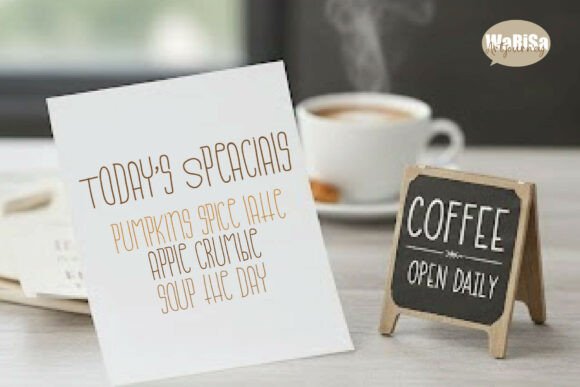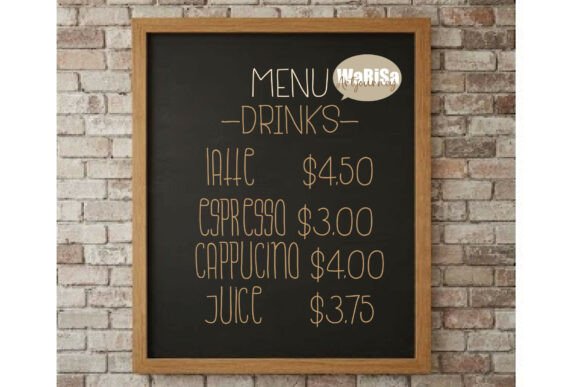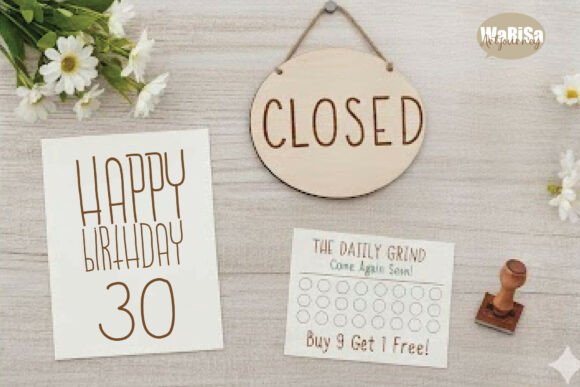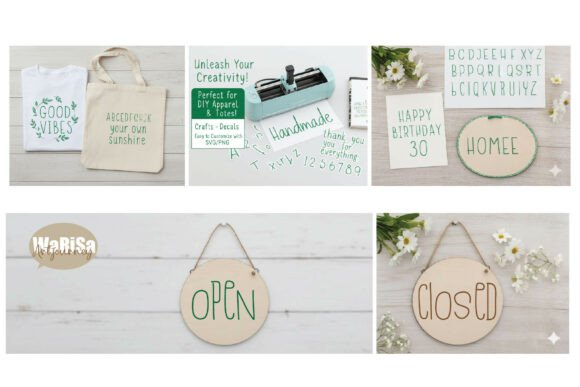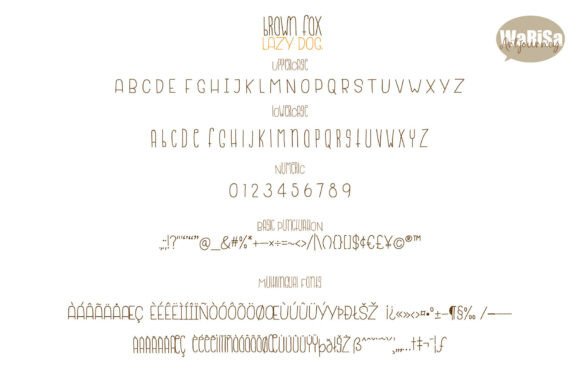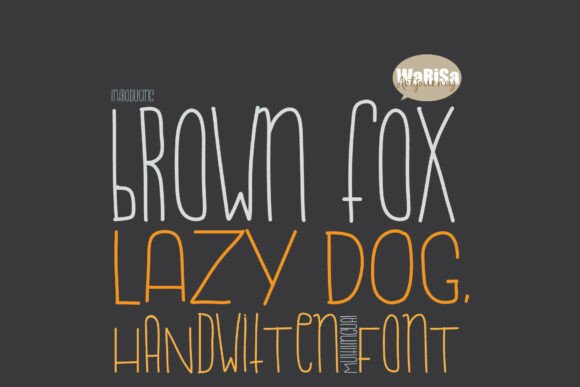
Brown Fox Lazy Dog Font: The Ultimate Single Line Sketch Font for Crafters and Designers
Are you tired of using ordinary fonts that draw double outlines and ruin your craft projects? Look no further! Introducing the Brown Fox Lazy Dog Font, a single line sketch font specifically designed for cutting and drawing machines. This thin and minimalist font is perfect for crafters and designers who want to elevate their projects with a playful and cute handwriting style.
What is a Single Line Font?
A single line font, also known as a monoline font, is a type of font that is designed to be used with cutting and drawing machines. Unlike regular fonts that draw double outlines, single line fonts are made up of a single stroke, making them perfect for machines that require a genuine single-stroke design.
Why is Brown Fox Lazy Dog Font Perfect for Crafters and Designers?
The Brown Fox Lazy Dog Font is specifically designed for crafters and designers who work with cutting and drawing machines. Here are some reasons why it’s perfect for your projects:
• Works flawlessly with Cricut and Silhouette machines: The Brown Fox Lazy Dog Font is optimized for use with Cricut (using the Draw/Sketch feature) and Silhouette (Sketch Pen) machines, as well as other plotters that require a genuine single-stroke, monoline design.
• Perfect for sketching and drawing projects: This font is ideal for sketching projects such as greeting cards, gift tags, and invitations. It’s also great for engraving and foiling projects like jewelry, keychains, and metal blanks.
• Ideal for crafting and vinyl decal projects: The Brown Fox Lazy Dog Font is perfect for crafting projects like vinyl decals, T-shirts, and scrapbooking.
• Playful and cute handwriting style: This font has a playful and cute handwriting style that’s perfect for adding a personal touch to your projects.
Benefits of Using a Single Line Font
Using a single line font like Brown Fox Lazy Dog Font has several benefits, including:
• Easier to use: Single line fonts are easier to use with cutting and drawing machines, as they don’t require any additional editing or modification.
• Cleaner lines: Single line fonts produce cleaner lines and a more precise design, making your projects look more professional.
• Less waste: Using a single line font can help reduce waste, as you don’t have to worry about double outlines or excess material.
The Brown Fox Lazy Dog Font is the perfect single line sketch font for crafters and designers who want to elevate their projects with a playful and cute handwriting style. With its thin and minimalist design, this font is specifically designed for cutting and drawing machines, making it easy to use and produce clean lines. Whether you’re working on sketching, engraving, or crafting projects, the Brown Fox Lazy Dog Font is the perfect choice.